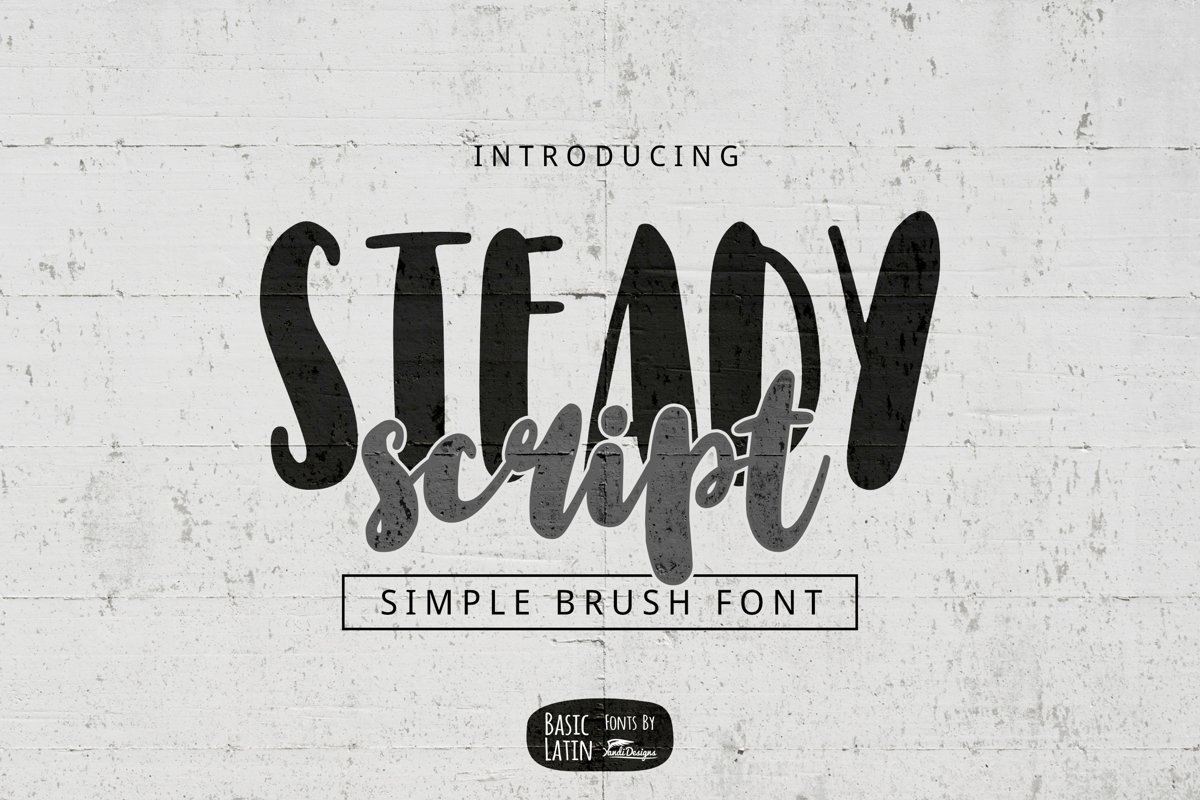
Steady Script
Steady Script Font
Steady font is simple beautiful multipurpose handmade font , suitable for many project children book, quotes, logo , heading , title etc.